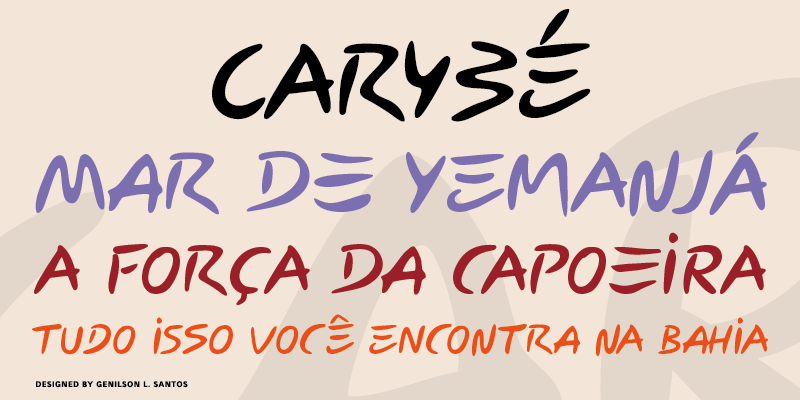
Preview and download Carybe Font. Created by Genilson L. Santos in Script Handwritten styles with Public domain / GPL / OFL license.
CARYBÉ is a script typeface inspired by the signature of the painter and sculptor Carybé (1911 - 1997). http://www.carybe.com.br This font is free for personal and commercial uses. Donations are highly appreciated. This Font Software is licensed under the SIL Open Font License, Version 1.1. This license is available with a FAQ at: http://scripts.sil.org/OFL Have a question?: genilson.blacktype@gmail.com |